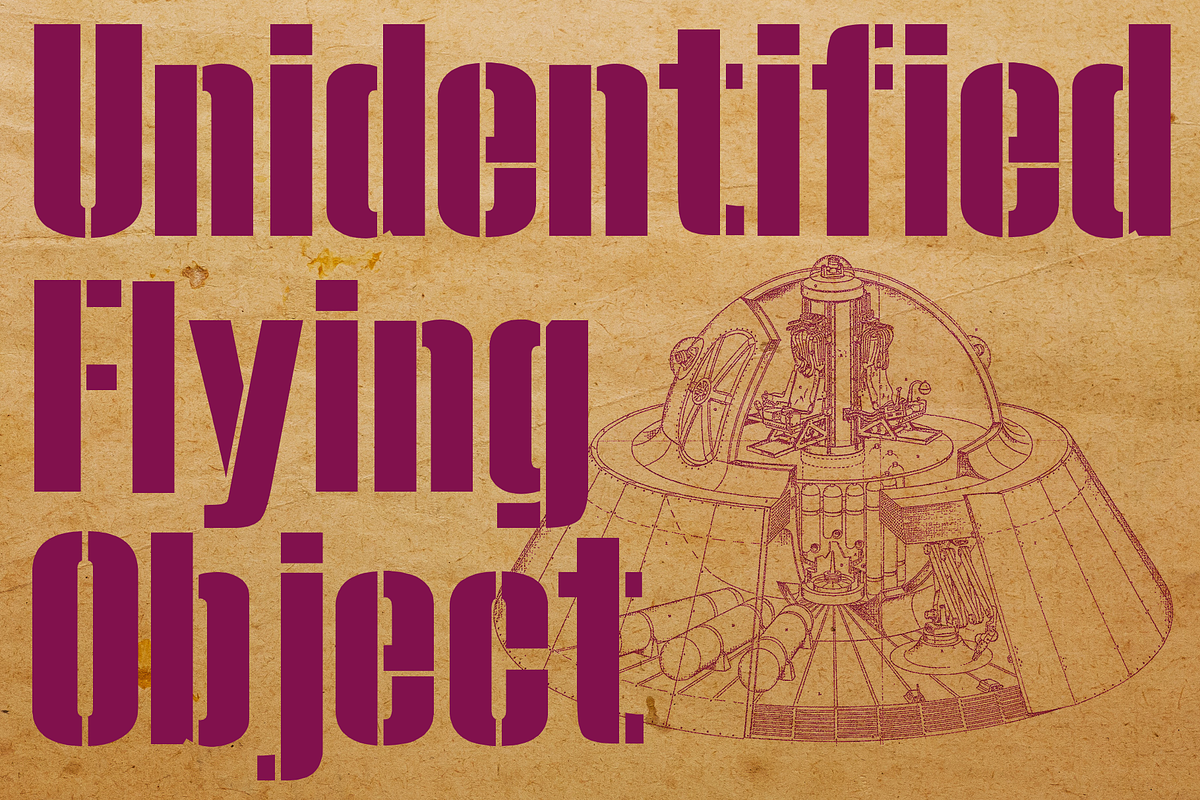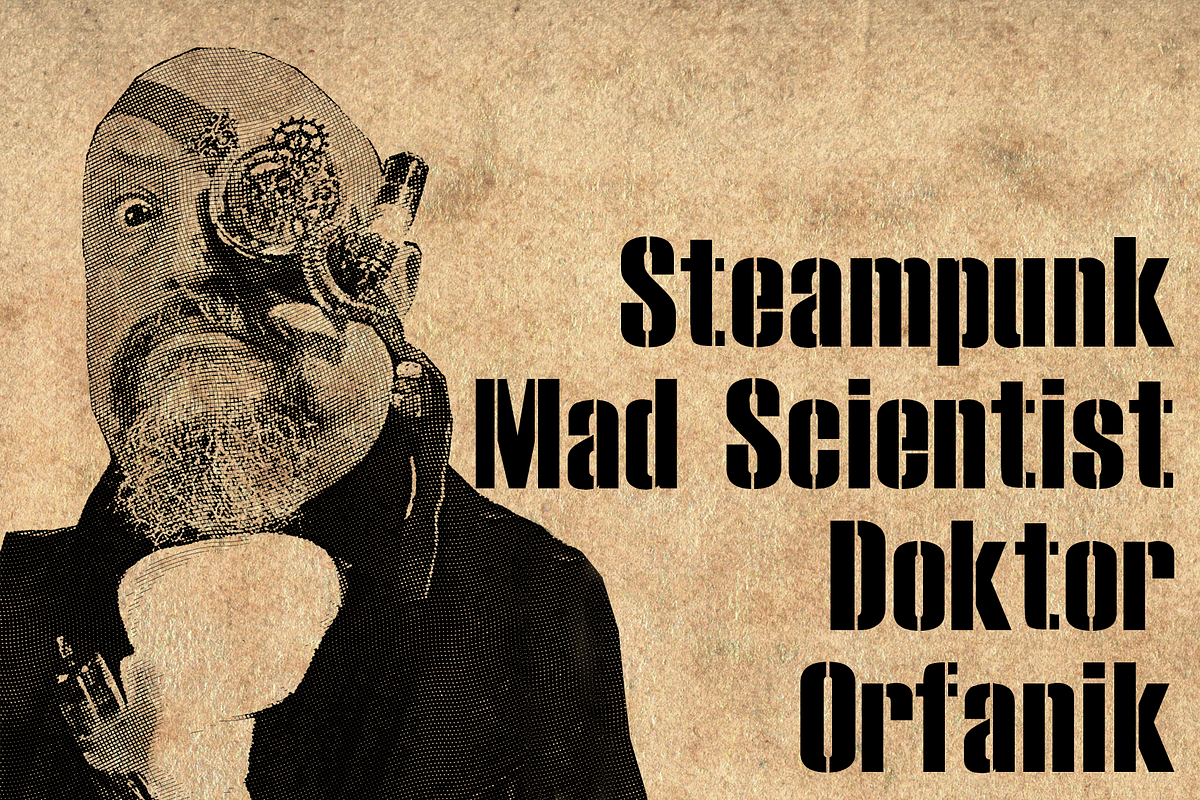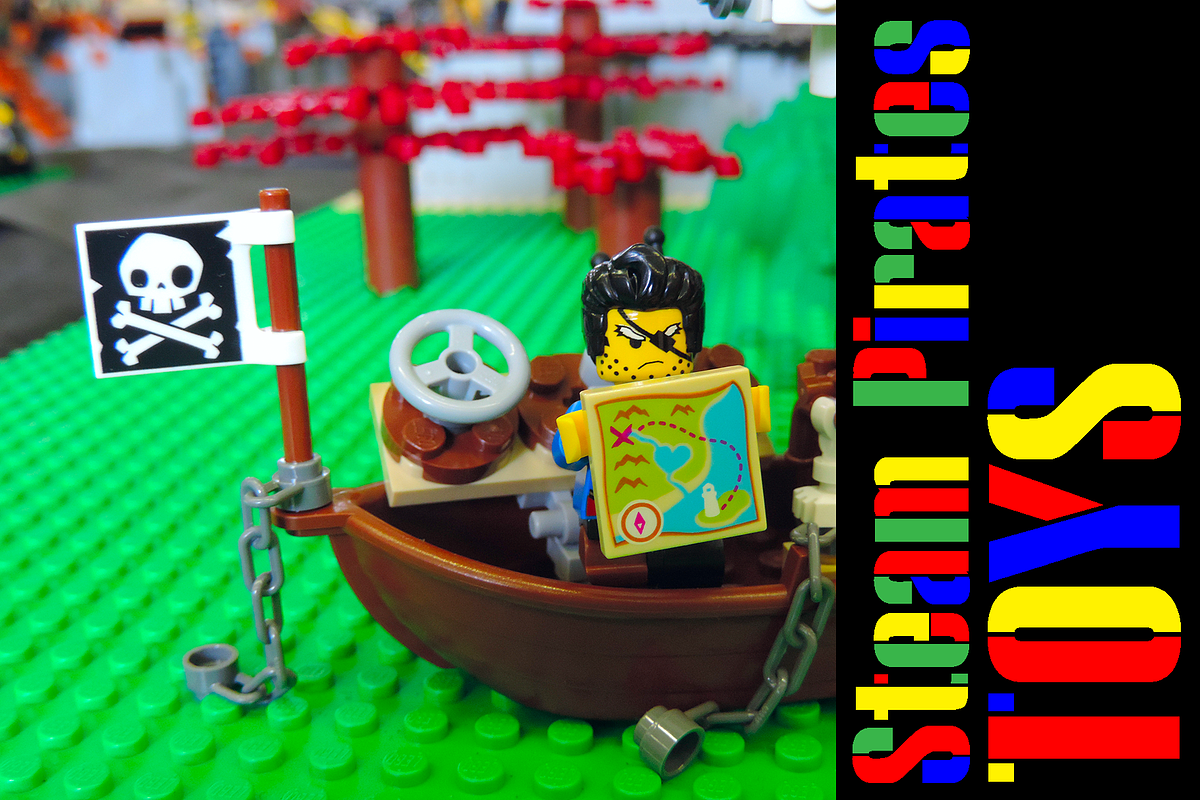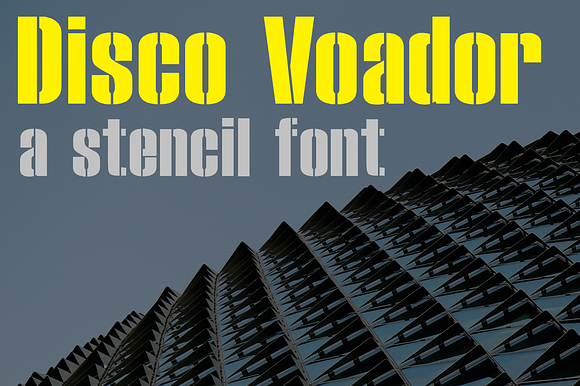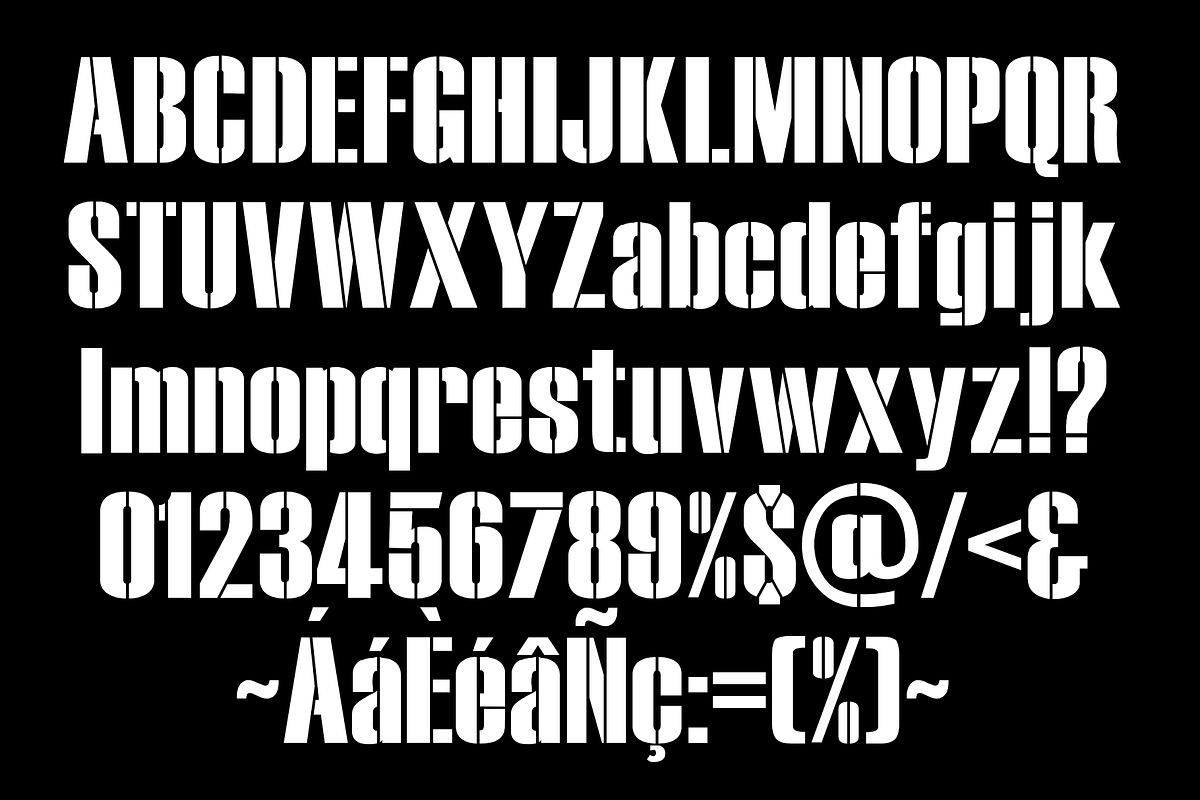
Disco Voador Stencil Font
Disco Voador is a stencil font. Very compact it makes a statment when used. Disco Voador means flying saucer in portuguese.
Disco Voador Stencil Font by Minhocossauro Emporium fits naturally into Branding, posters, packaging, typography.